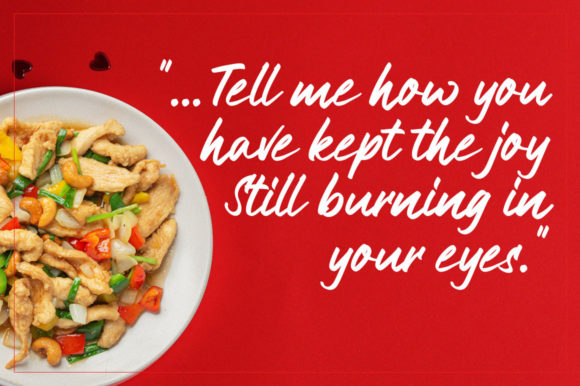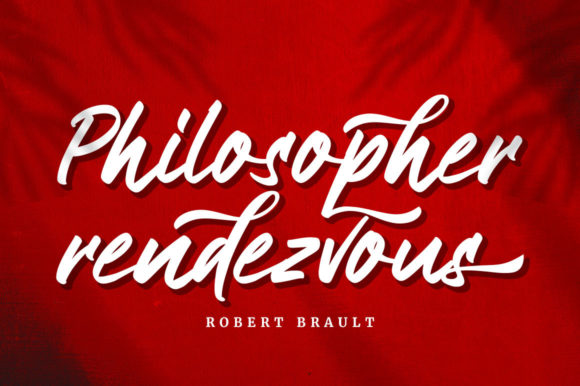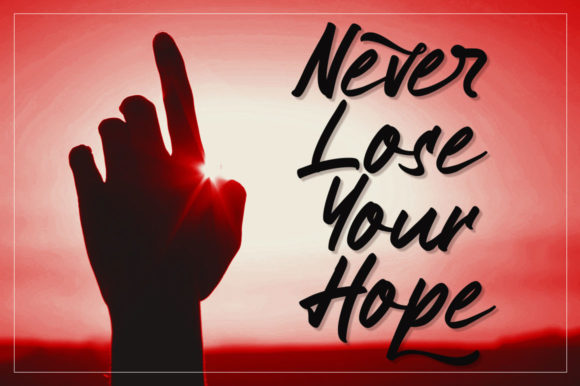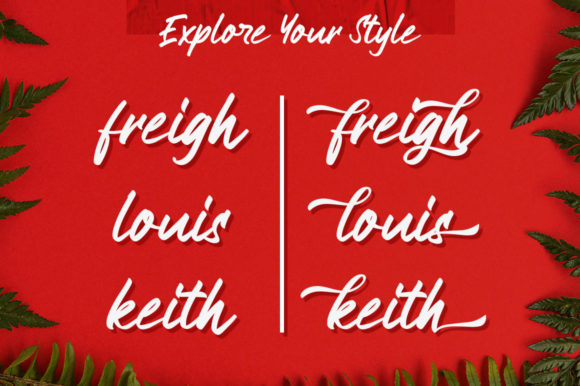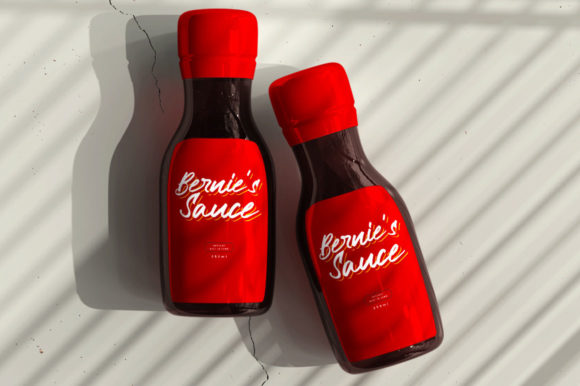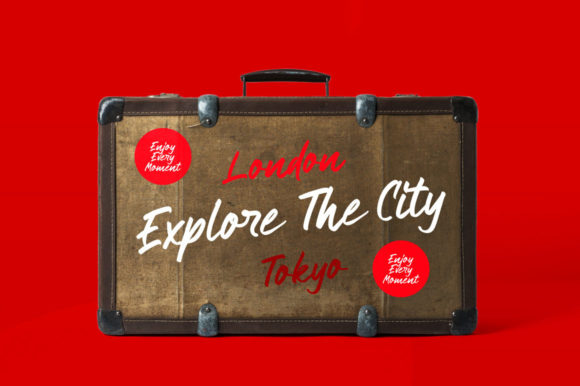
Unleashing the Playful Charm of Your Designs
Have you ever been brainstorming a creative project, only to be struck by a burst of inspiration that makes your heart skip a beat? It’s moments like these that remind us why we love being designers – the rush of excitement, the thrill of bringing a vision to life. And, let’s be honest, the perfect font can make all the difference.
Enter Bakulipack Script Font, a delightful addition to any designer’s toolkit. With its charming, playful characters that seem to dance along the baseline, this script font is sure to elevate your most creative ideas and make them stand out. Whether you’re working on a wedding invitation, a children’s book, or a social media campaign, Bakulipack Script Font is the perfect choice to add a touch of whimsy and personality to your design.
Bakulipack Script Font Key Features
- Unique Characteristics: This font features a beautiful, handwritten script style with elegant flourishes, making it perfect for creating visually appealing and creative content.
- Font Style: Bakulipack Script Font is a script font, ideal for use in titles, headings, and other design elements where a decorative and elegant feel is desired.
Bakulipack Script Font Review
I recently had the chance to work with the Bakulipack Script Font, and I’m here to share my honest thoughts about it.
- Elegant look**: The font has a beautiful, handwritten feel that adds a touch of sophistication to any design project.
- Customization options**: Bakulipack offers a range of styles, including uppercase and lowercase letters, numbers, and punctuation marks, giving you plenty of creative freedom.
- Limited font weights**: While Bakulipack offers several styles, the font weights are somewhat limited, which may not be ideal for projects that require a wide range of weights.
- No language support**: The font only supports the Latin alphabet, which may be a concern for designers who work with non-Latin languages.
Overall, I was impressed with the Bakulipack Script Font’s elegant look and customization options. However, the limited font weights and lack of language support are notable limitations. If you’re looking for a beautiful script font for a specific project, Bakulipack might be a great choice. Just be aware of its limitations and consider them when making your decision.
Tips for Getting the Most Out of Bakulipack Script Font
1. Use Bakulipack Script Font for titles, headings, and other attention-grabbing text.
2. Pair Bakulipack Script Font with a clean and simple sans-serif font for body text.
3. Experiment with different font sizes and colors to create visual interest.
Common Use Cases for Bakulipack Script Font
2. Branding and logos.
3. Social media graphics and advertising.
Alternatives to Bakulipack Script Font
Great Vibes is a beautiful, elegant script font perfect for creating a warm and inviting atmosphere in your designs. It is ideal for use in invitations, greeting cards, and other creative projects where a touch of sophistication is needed. Great Vibes is more cursive than Bakulipack Script Font and has a more fluid, connected feel.